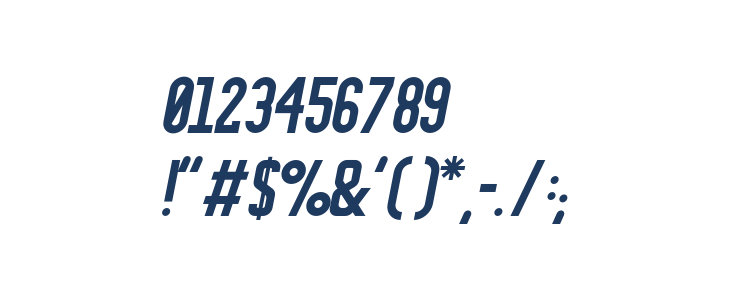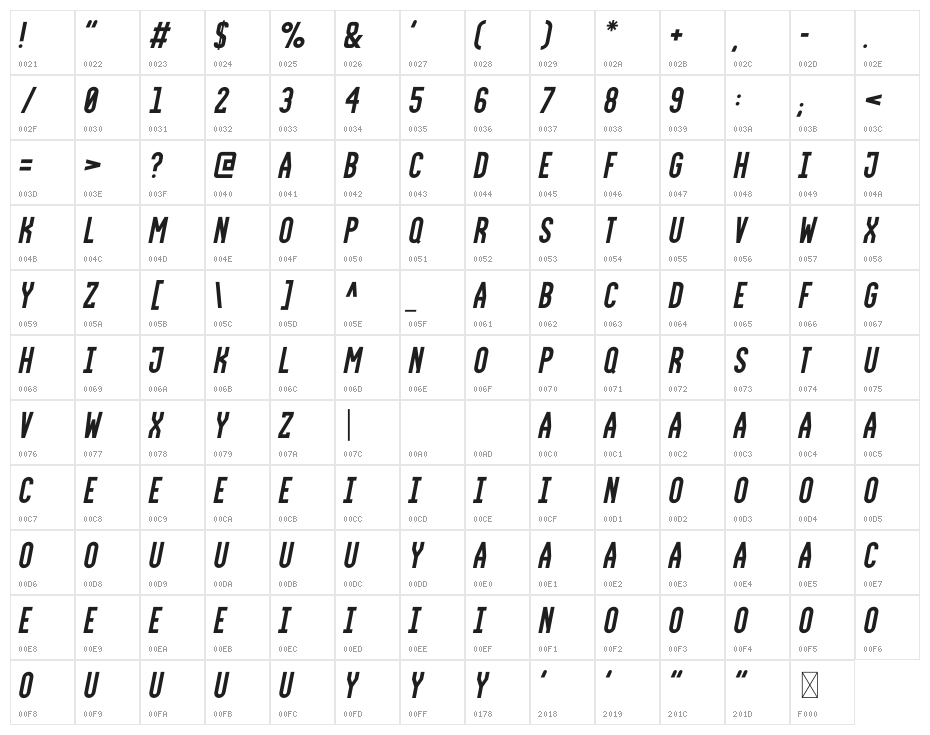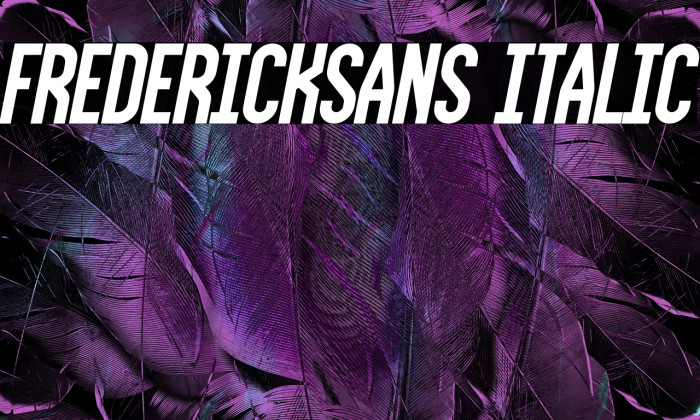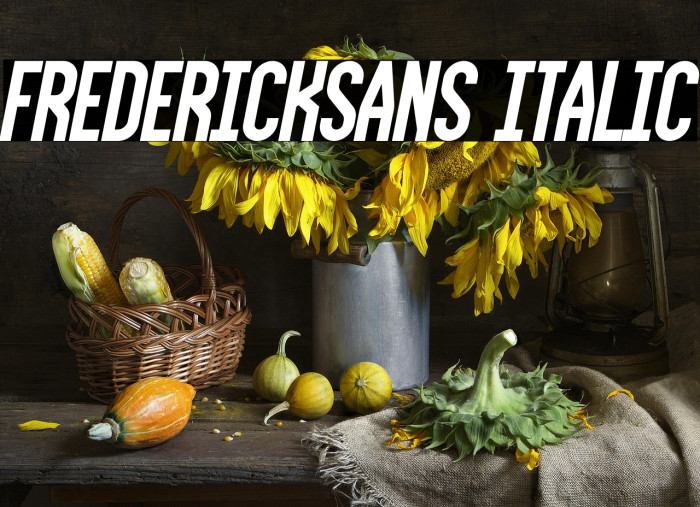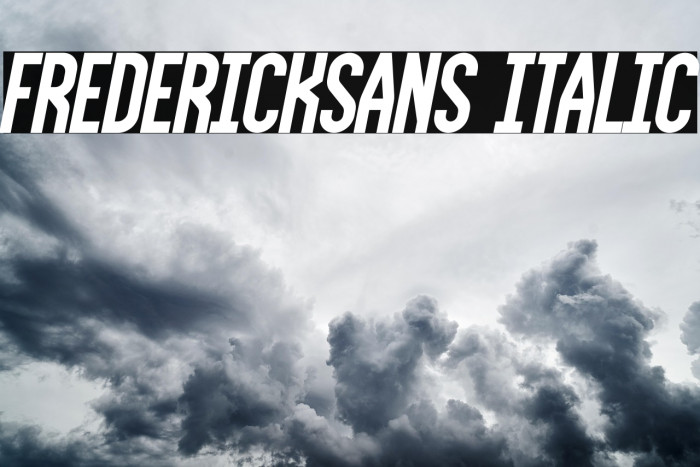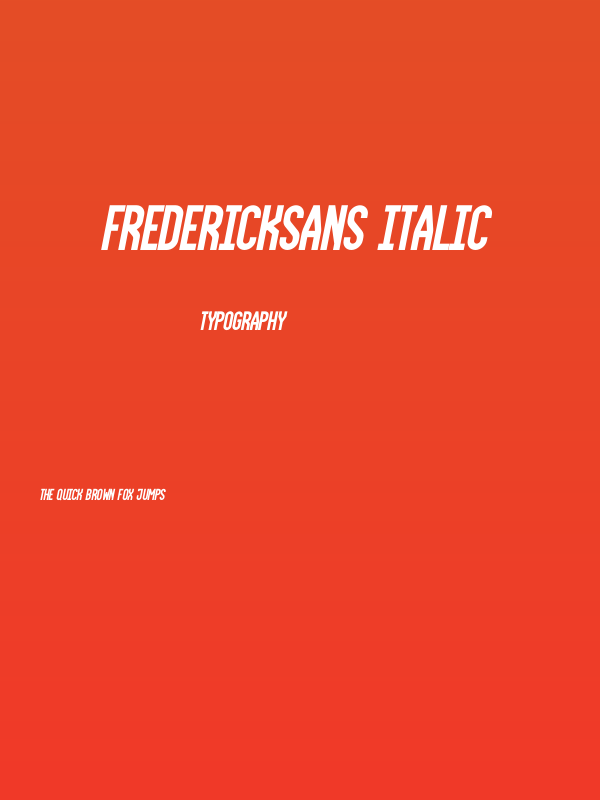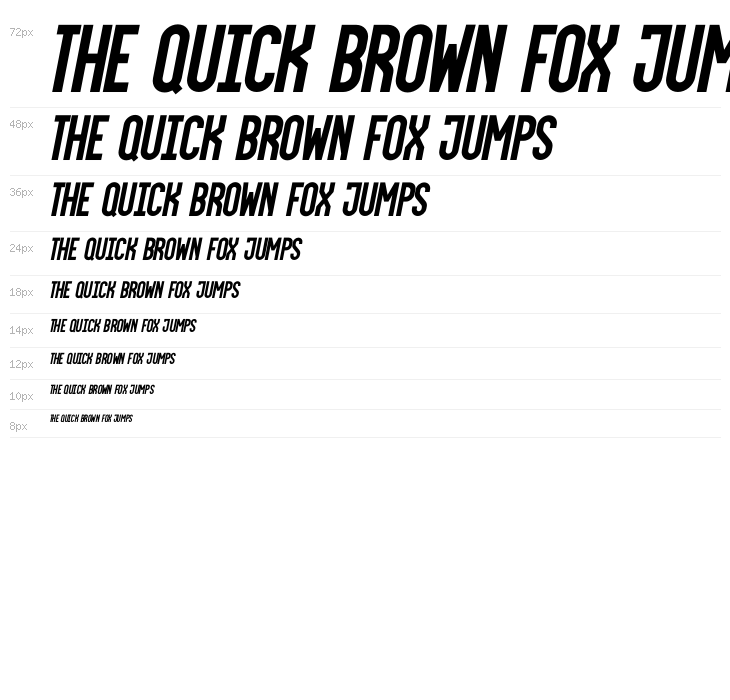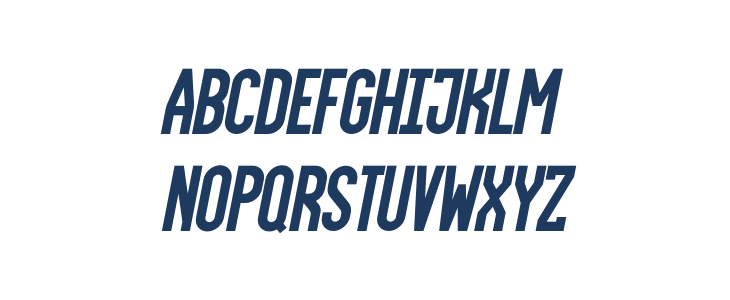
FrederickSans Italic Font
FrederickSans Italic Description
This font features a bold and dynamic sans-serif style with a noticeable italic slant, giving it a sense of movement and energy. The characters are well-defined with a consistent stroke width, contributing to a clean and modern appearance. The uppercase and lowercase letters maintain a uniform height, enhancing readability. The numerals are clear and distinct, matching the overall style of the alphabet. Special characters are included, providing versatility for various design needs. The font's strong presence makes it suitable for impactful headlines and branding.